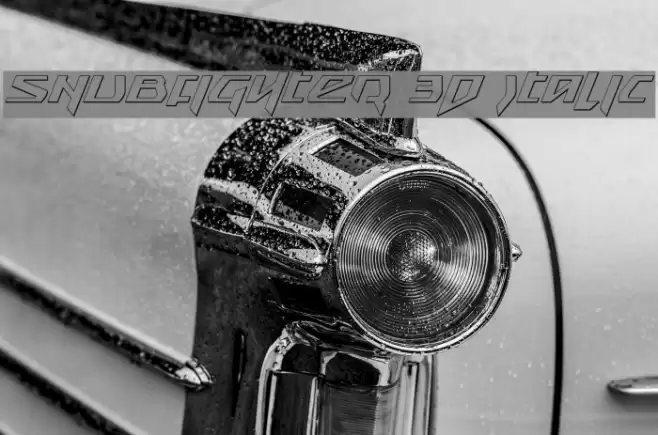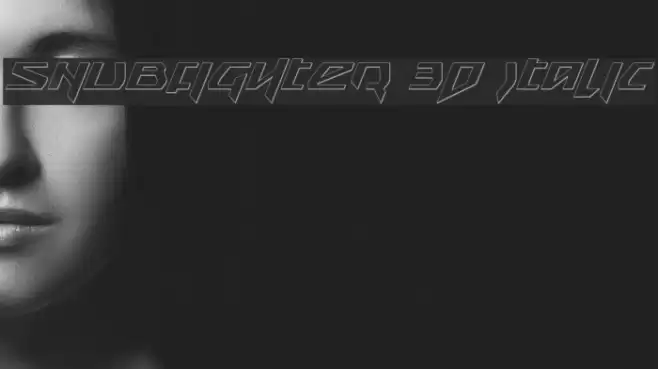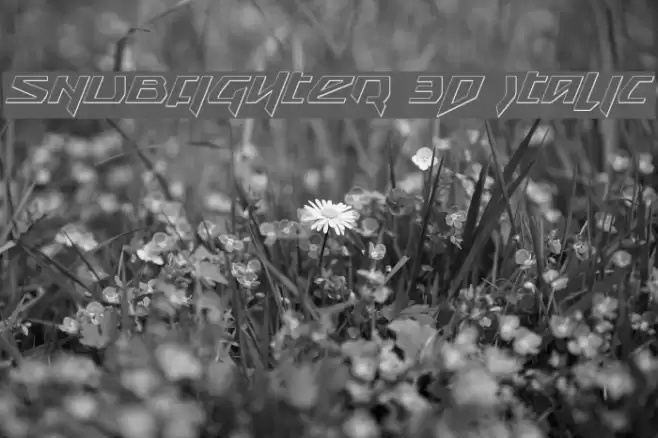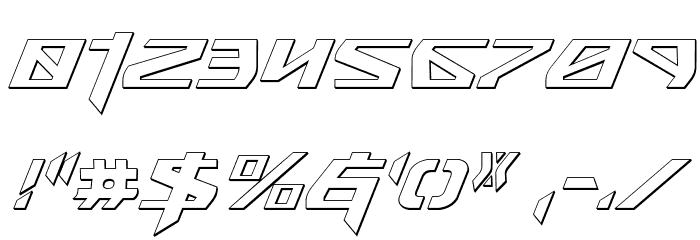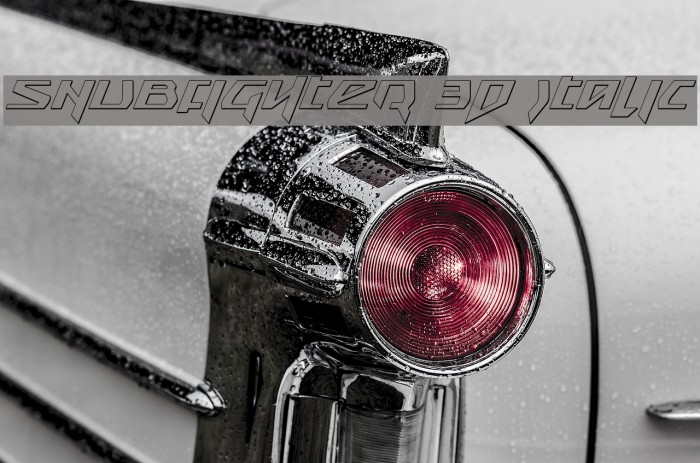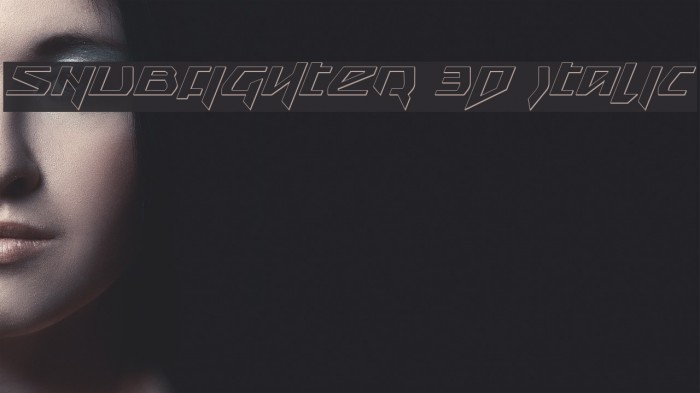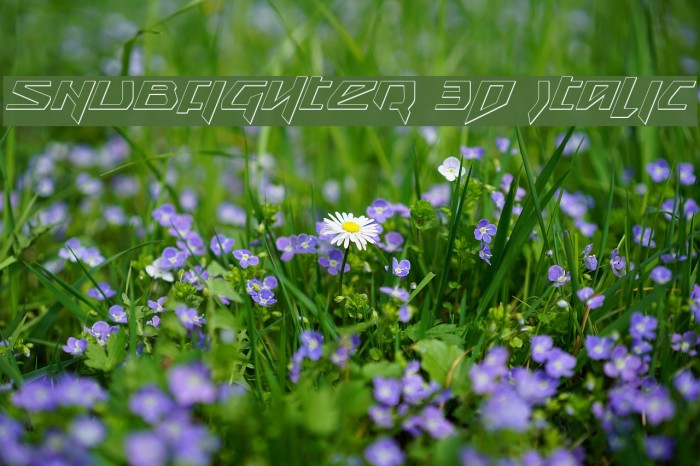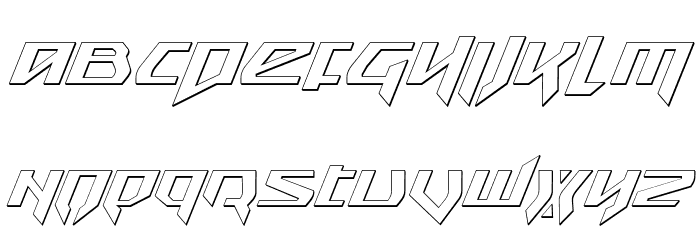
Snubfighter 3D Italic Font
Snubfighter 3D Italic Description
This font features a bold, angular design with a futuristic and dynamic appearance. Each character is crafted with sharp edges and a 3D effect, giving it a sense of depth and movement. The italicized style adds to its energetic and forward-leaning look, making it ideal for projects that require a modern and edgy aesthetic. The uppercase and lowercase letters maintain a consistent style, while the numbers and special characters are designed to complement the overall theme. This font is perfect for creating impactful headlines, logos, and designs that need a strong visual presence.
A bold, angular, and futuristic 3D italic font with sharp edges from Sci-fi fonts.
- Proposed Projects: Ideal for sci-fi themed posters, video game graphics, tech branding, and dynamic logos.